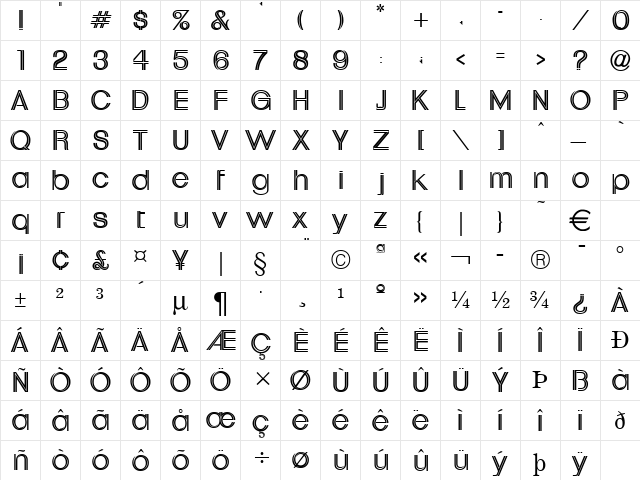
Upperville Normal Font Preview
Upperville Normal
Upperville Normal Font Details
Design Context for Upperville Typeface
Upperville takes a measured approach to typography — its balanced proportions and neutral character make it a reliable workhorse for both digital and print work.